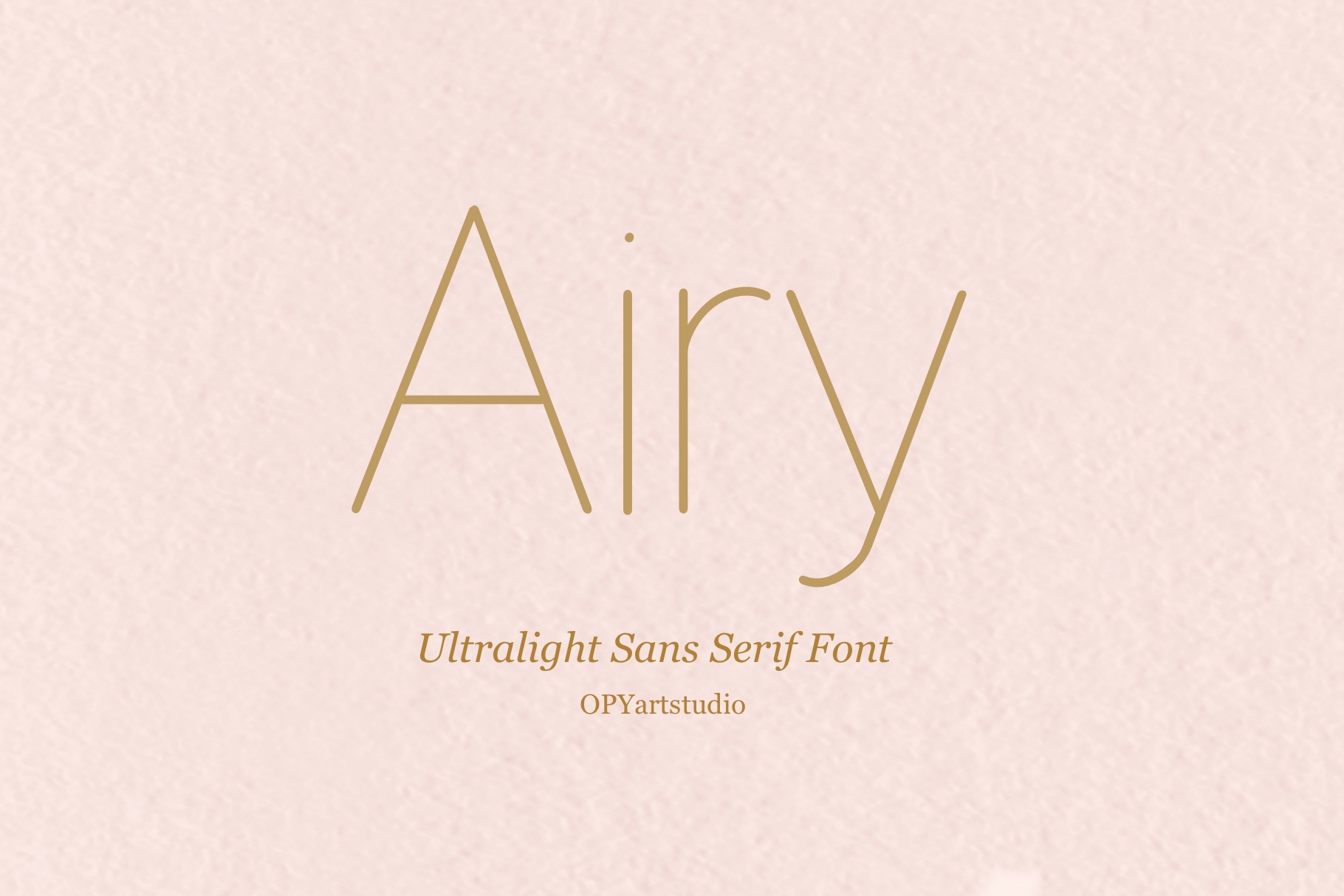
Airy - Ultralight Minimalist Font
"Airy" is characterized by its light, simple, and minimalistic design, while still maintaining an air of elegance and luxury. This font has an expensive look and is often associated with good taste and sophistication. It is perfect for creating presentations, cards, business cards, and branding materials as it exudes a sense of professionalism and class.
The simplicity of the font makes it easy to read and understand, while its elegance and minimalism give it a distinctive and memorable appearance. The font's clean lines and open spaces make it versatile and adaptable, able to be used in a wide range of contexts without feeling out of place. Overall, this font is an ideal option for those seeking to communicate a sense of high-end style and refinement in their branding and design endeavors.